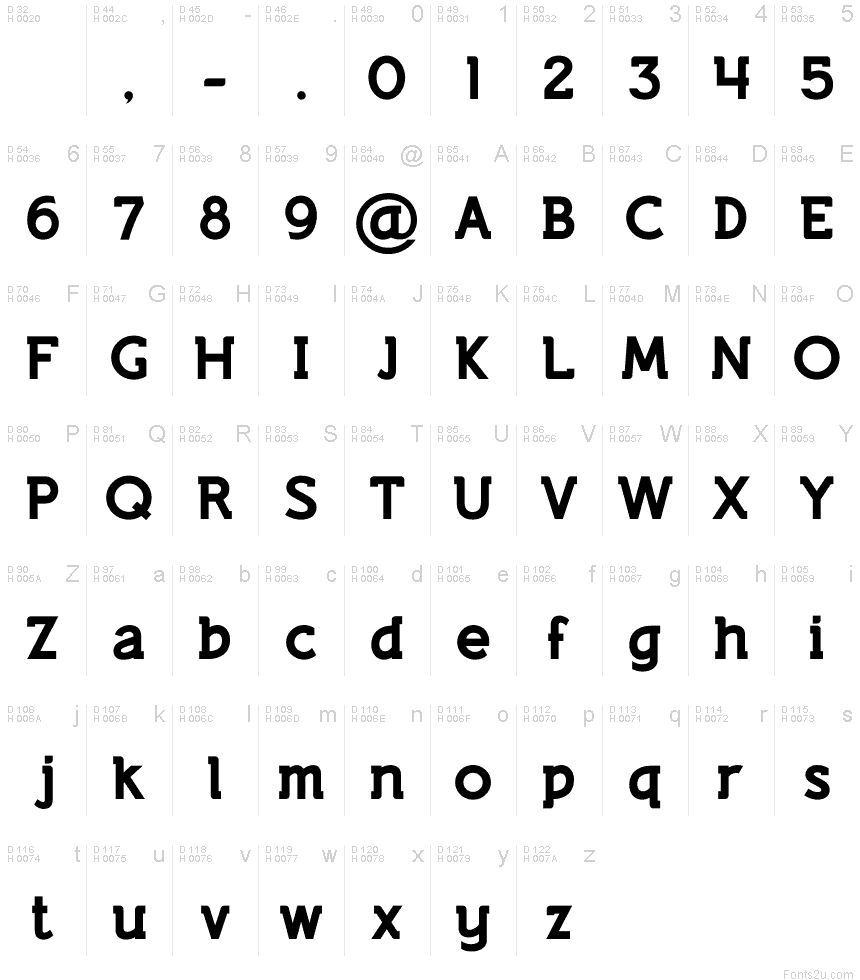
Lifestyle Rounded M54 by Mohammed Rahman is a free rounded slab serif display font with broad, weighty letters and a distinctly retro profile. Its sturdy block serifs meet soft outer curves, and the changing stroke widths keep the shapes lively rather than mechanical.
Its 1970s editorial flavor makes it a convincing choice for magazine covers, music posters, and record sleeves. The ample, friendly forms also suit food packaging and casual restaurant branding, especially when a nostalgic voice is wanted. Across these uses, the combination of stout serifs and rounded curves connects the lettering to the warm, graphic typography of period advertising.
This is the round-edged version of “Lifestyle M54.”